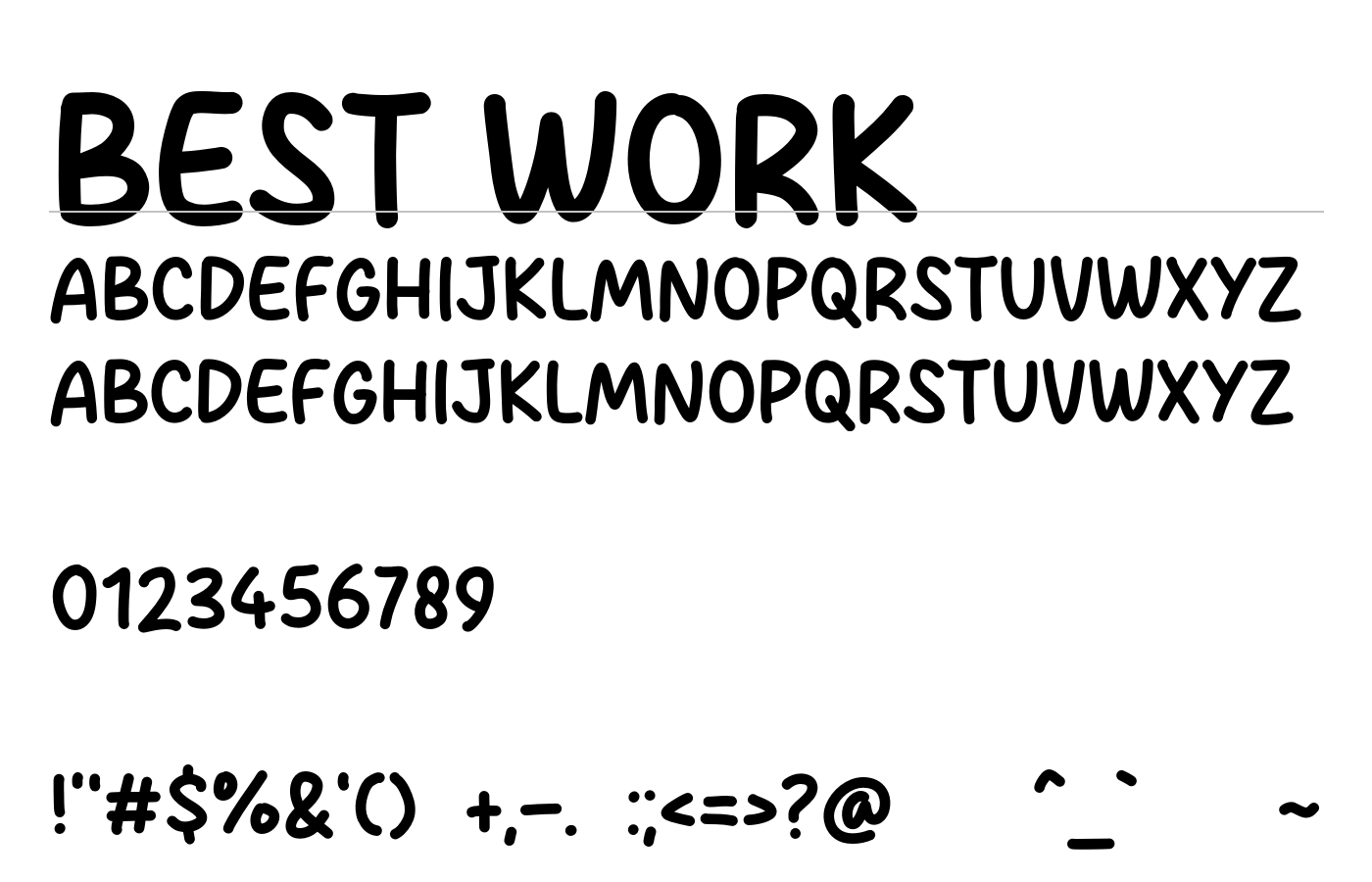
Best Work Font is a casual, playful sans serif typeface with a hand-drawn feel. Its rounded, slightly irregular letterforms and moderate weight give it a friendly and approachable personality, making it perfect for informal designs such as children’s books, creative branding, or fun editorial projects where a warm and lively tone is desired. This font works best in headlines or short texts where its unique, personable style can stand out and create an inviting atmosphere.
Best Work Font
About Best Work Font
| Font family | Best Work Font |